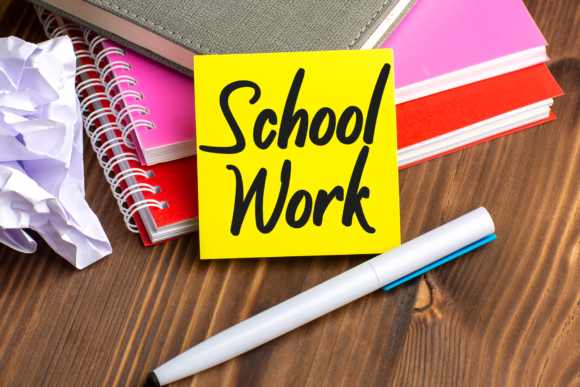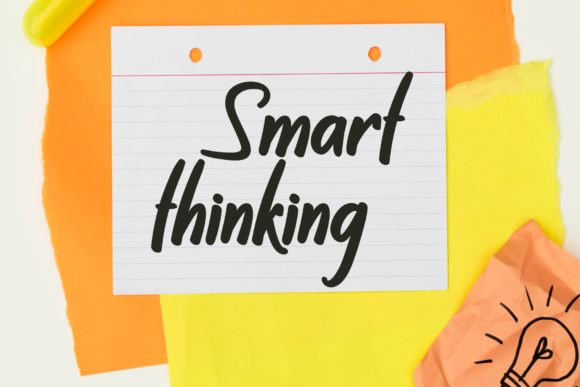
Hello Homework Font
db-ku.com - Script & Handwritten -- Hello Homework is a trendy handwritten font with a contemporary atmosphere and impeccable form, inspired by timeless classic calligraphy. It will add elegance and class to any of your design projects. This font can be used to write various kinds of products according to the aspect of each need.